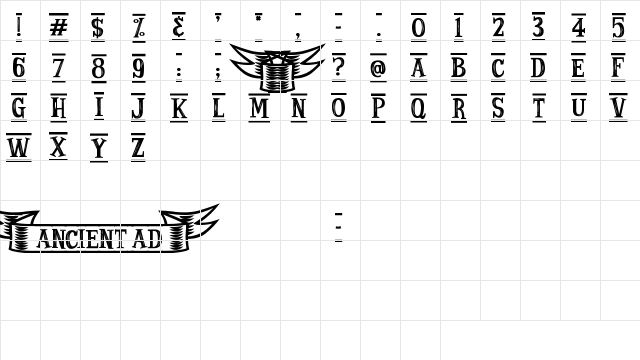
Ancient Ad Regular
| Designer | IMAGEX |
Design Context for Ancient Ad Typeface
Ancient Ad takes a measured approach to typography — its balanced proportions and neutral character make it a reliable workhorse for both digital and print work.